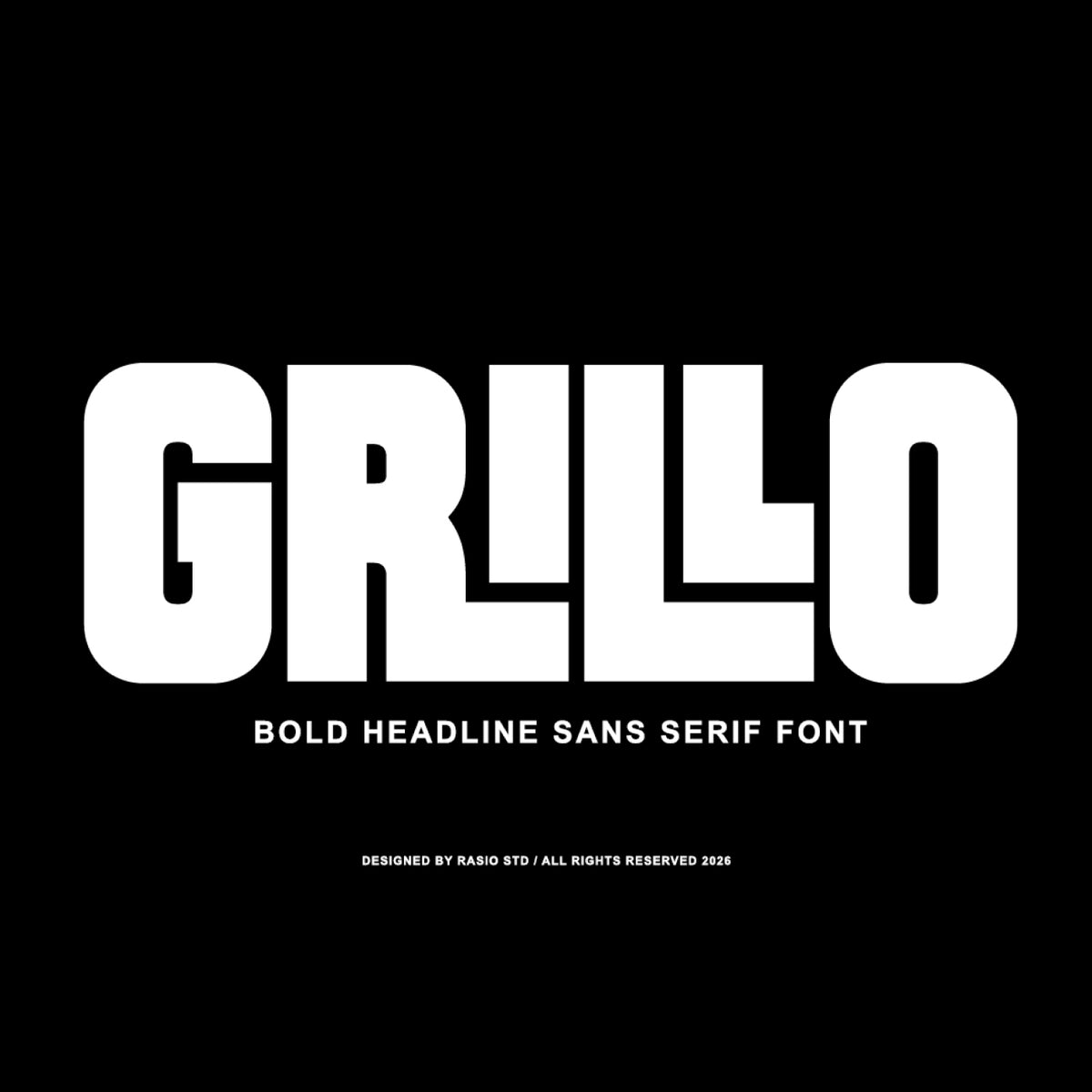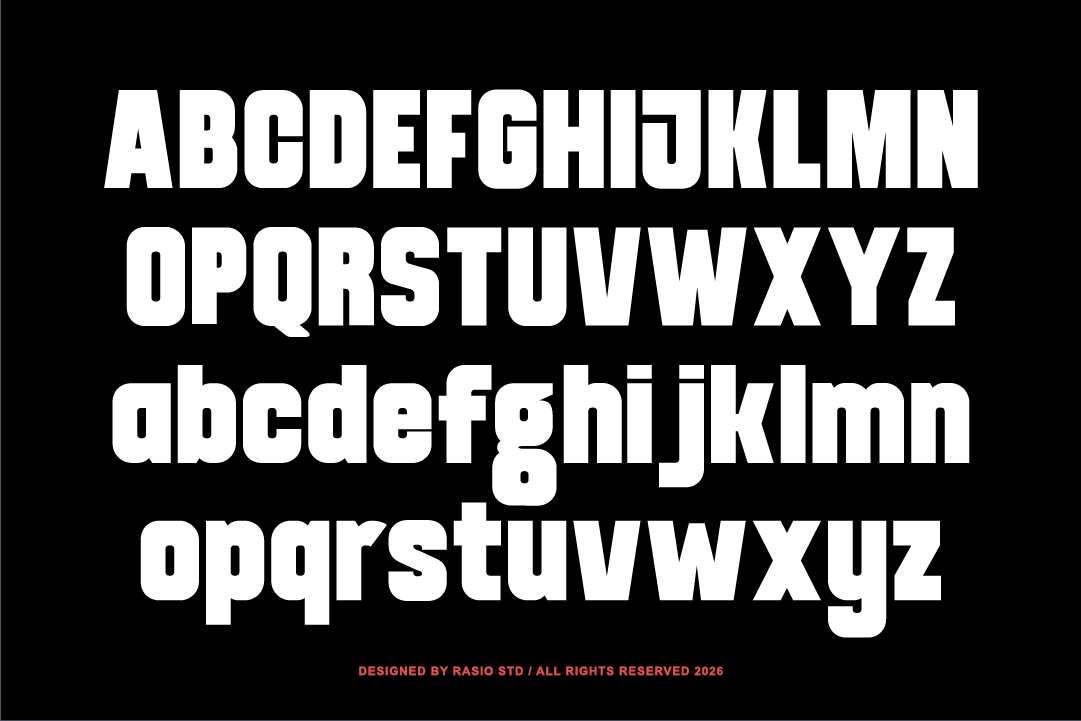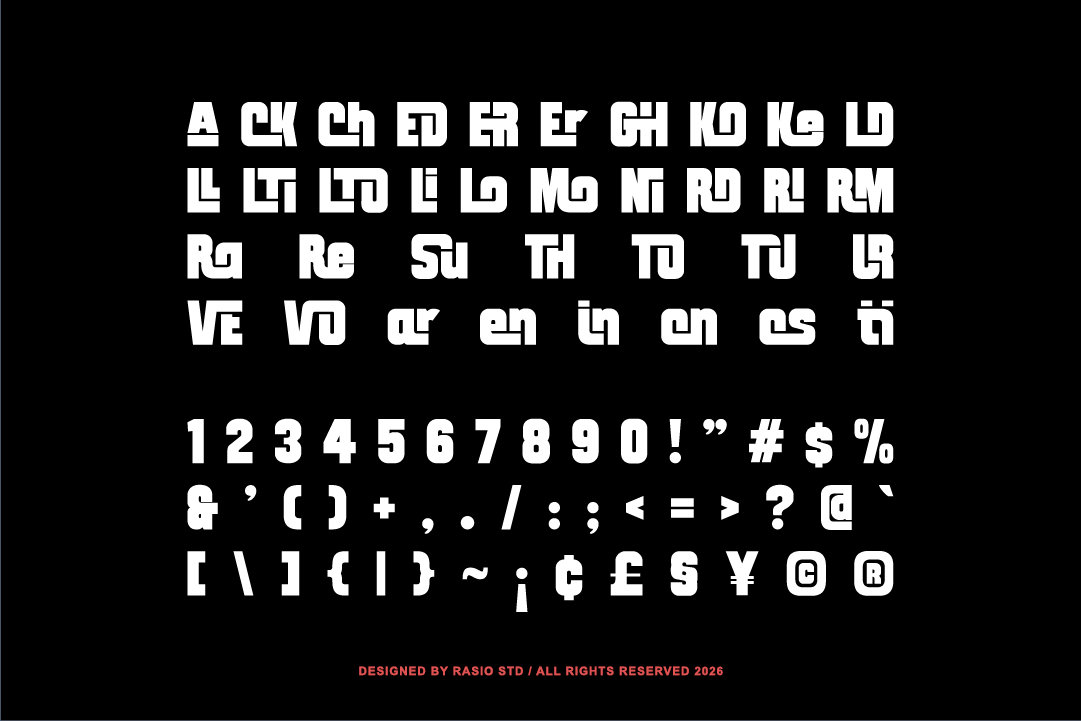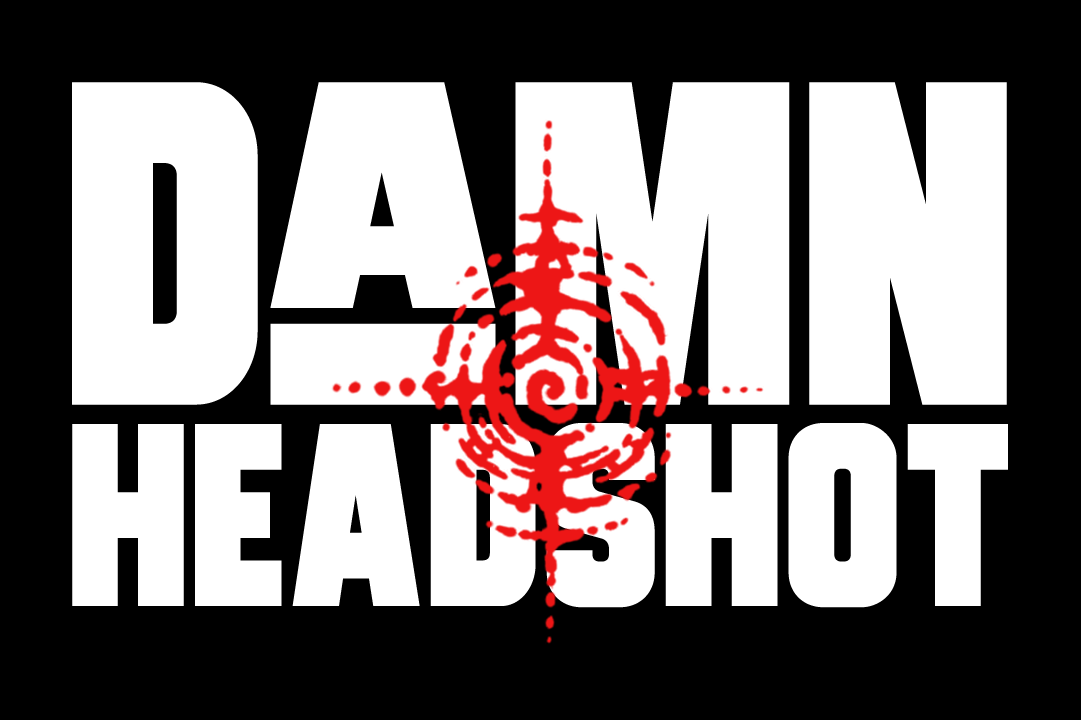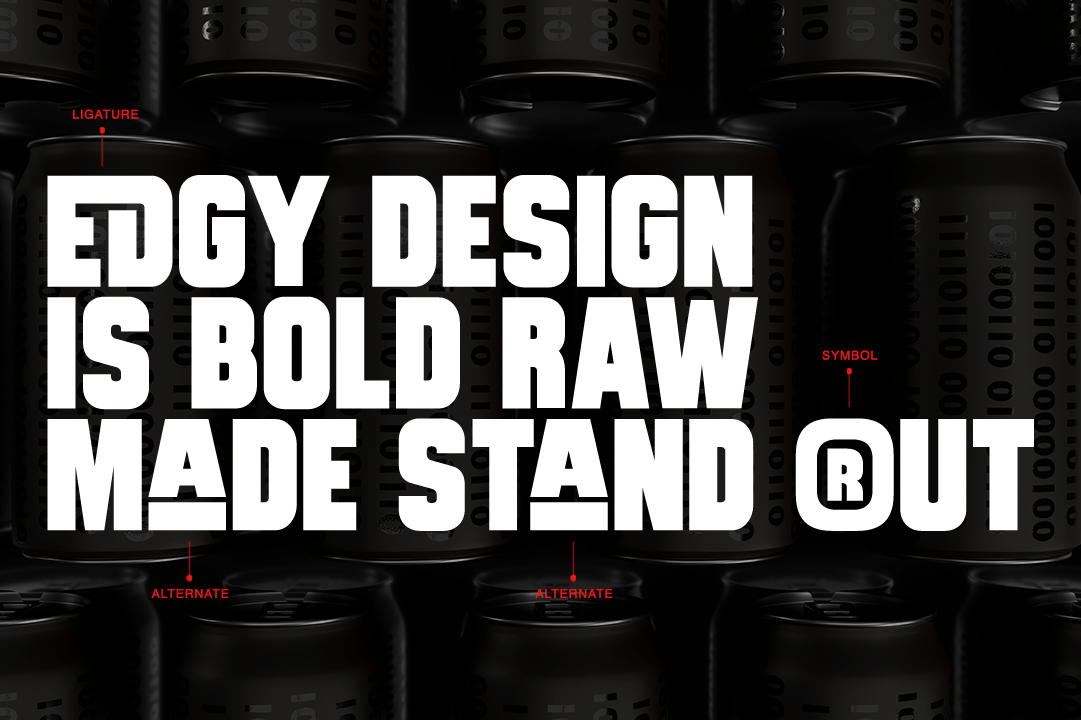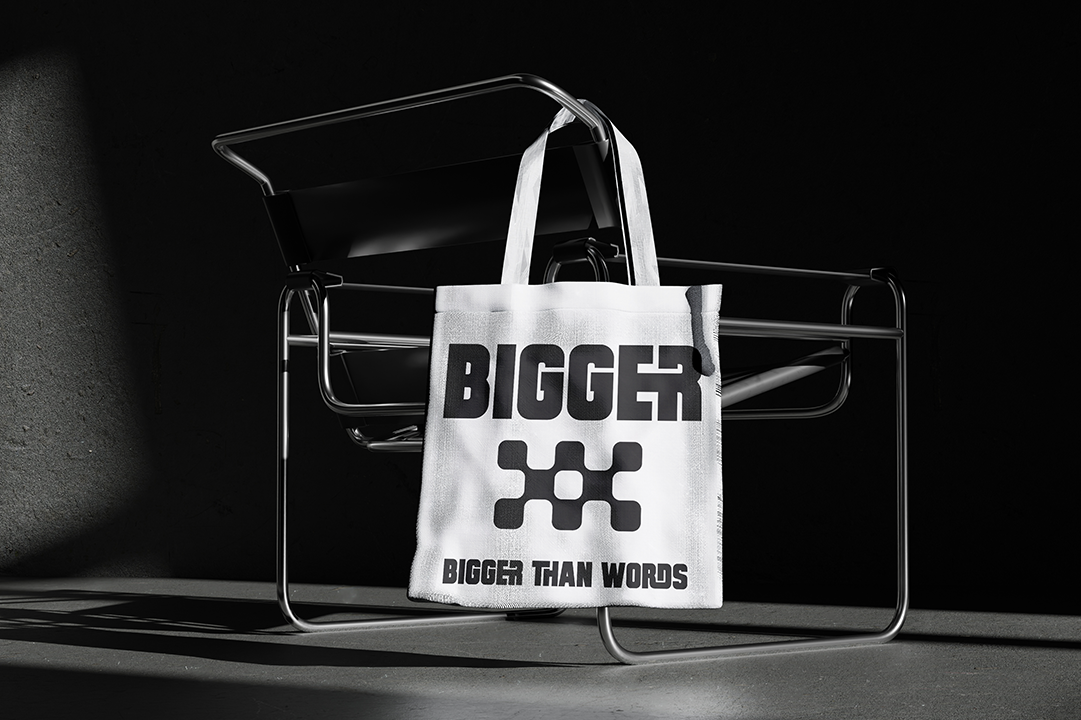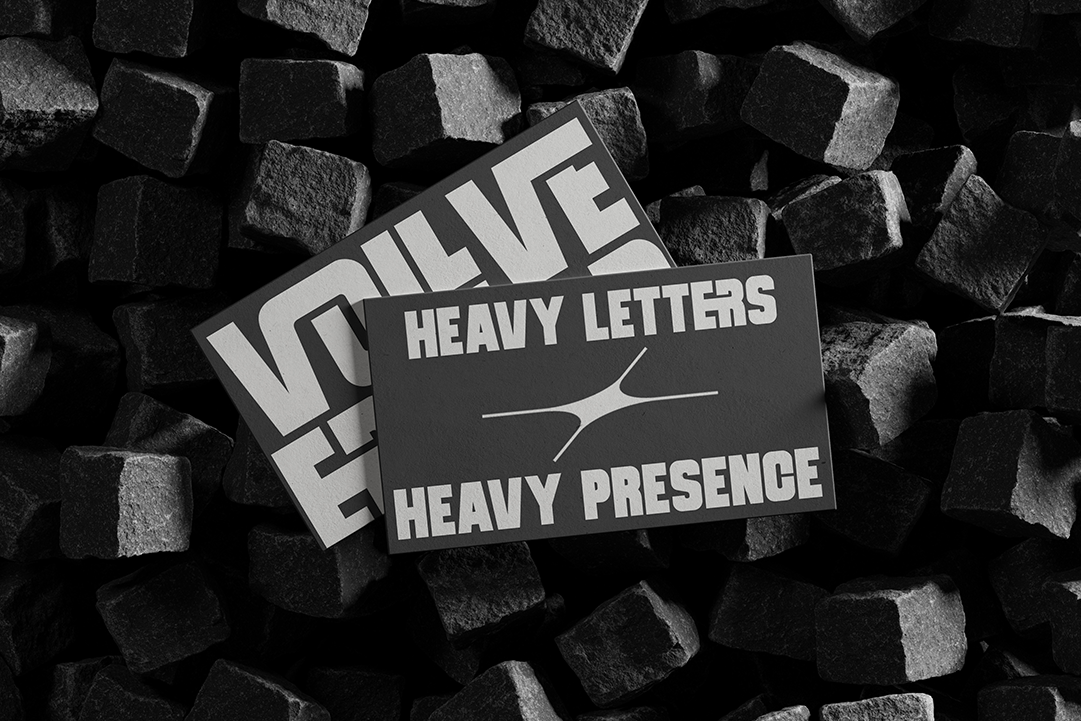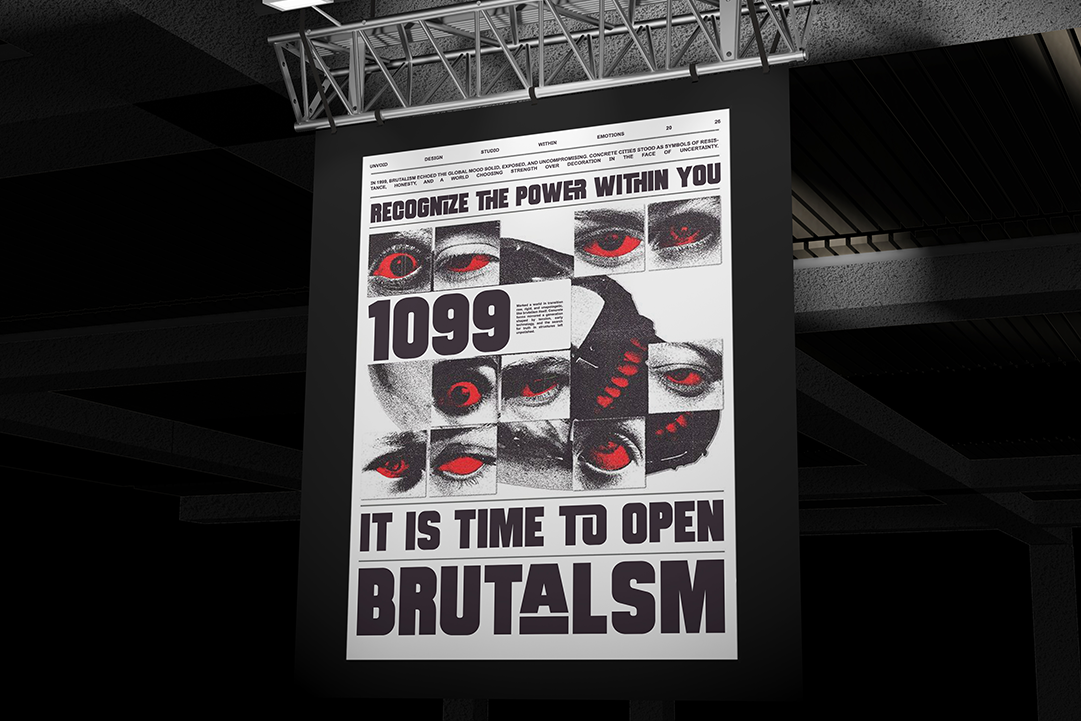
Grillo Bold Headline Sans Serif Font
Grillo is a heavyweight, high-impact sans serif font designed for bold headlines, eye-catching titles, and powerful branding. With its geometric construction, tight spacing, and dramatic presence, Grillo delivers clarity and dominance across digital and print platforms. The font includes uppercase and lowercase letters, numerals, punctuation, and multilingual support. Bonus ligatures and stylistic alternates add extra versatility for logos, posters, packaging, or editorial design.
Relevance and Use Cases is perfect for designers and brands seeking maximum visual impact. Its bold form makes it a perfect fit for logo design, editorial layouts, packaging, social media titles, and advertising. Whether you're crafting a contemporary magazine spread, a sports brand identity, or a streetwear label, Grillo commands attention with confidence and clarity.
Grillo Bold Headline Sans Serif Font is a heavyweight geometric sans serif with uppercase and lowercase letters, numerals, punctuation, multilingual support, ligatures, and stylistic alternates. It is available in OTF, TTF, and WOFF formats.